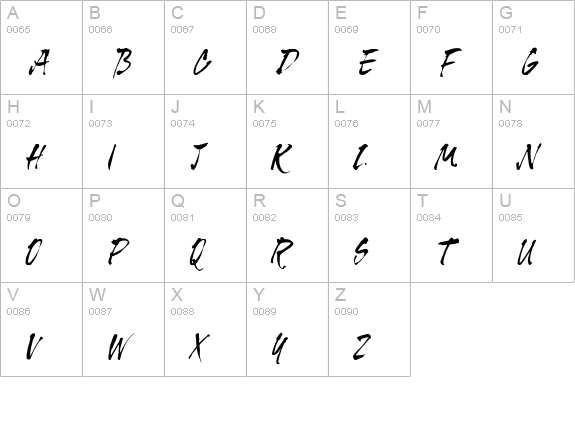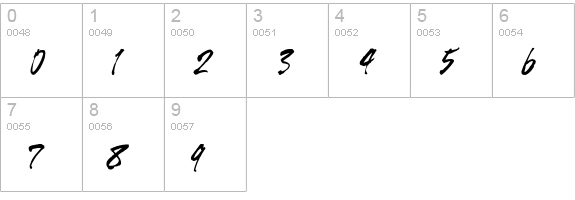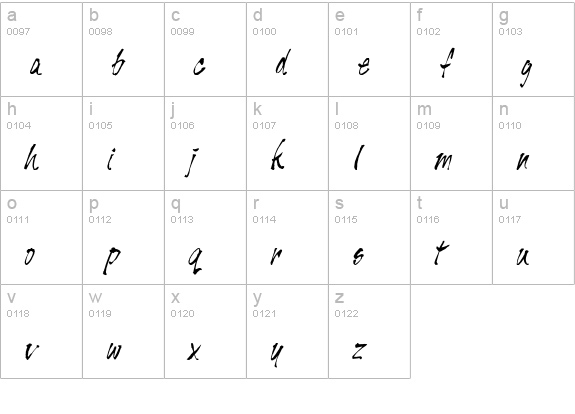
Tiger Rag Plain Font Details
Tiger Rag Plain font is a stunning display typeface that exudes a sense of strength, power, and wildness. With its bold lines and sharp edges, this font commands attention and makes a lasting impression. Designed with meticulous attention to detail, Tiger Rag Plain font is perfect for creating eye-catching headlines, logos, posters, and more. This font embodies the spirit of the majestic tiger, capturing its fierce and untamed nature. Each letter is crafted with precision, resulting in a typeface that is both striking and legible. Whether you're designing for a sports team, a music festival, or a wildlife conservation organization, Tiger Rag Plain font will add a touch of wild elegance to your project. But what makes Tiger Rag Plain font even more appealing is that it is available for free! That's right, you can freely download this incredible font at FontsMarket.com. Now, you can enjoy the beauty and power of Tiger Rag Plain font without spending a dime. It's the perfect opportunity to enhance your design work without breaking the bank. So why wait? Unleash your creativity and let Tiger Rag Plain font take your designs to new heights. Whether you're a professional designer or just starting out, this font will undoubtedly make a bold statement. Download Tiger Rag Plain font today and let your imagination run wild!